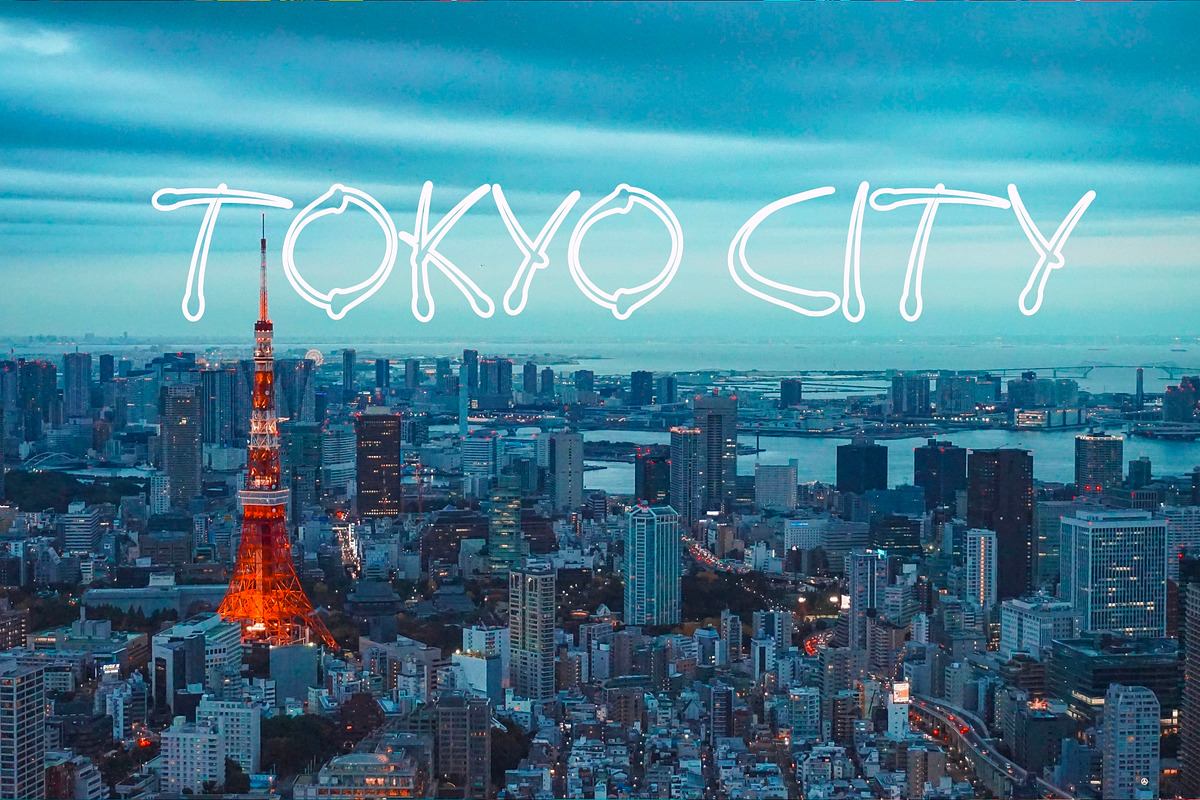
Tokyo City Handwritten Display Font Free Download
Tokyo City Handwritten Display Font Free Download brings an urban, stylish vibe to your design projects with its expressive, handwritten flair. Please note, you are required to purchase this font for commercial use. It is available for free download for testing and personal projects only.
Inspired by the energy and rhythm of city life, this font combines artistic strokes with a modern edge, making it perfect for branding, social media posts, apparel design, and creative headlines. It adds personality and movement to any layout, helping your message stand out.